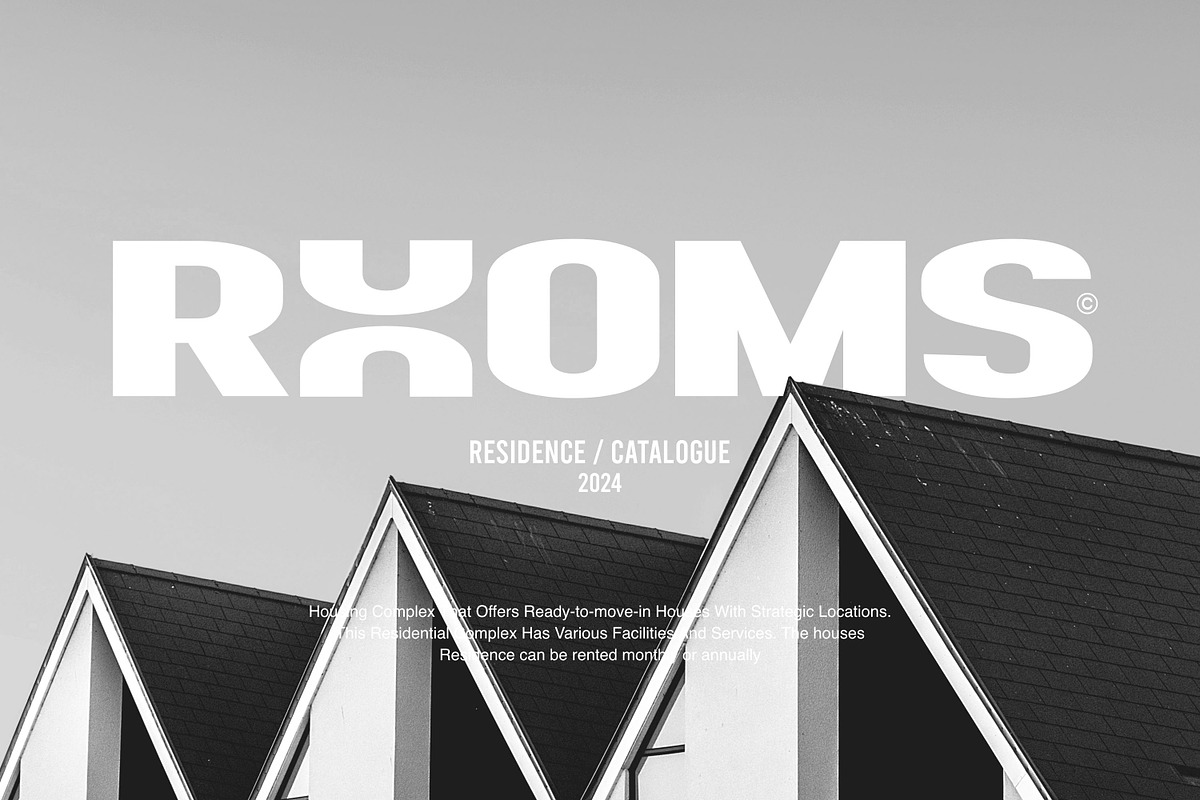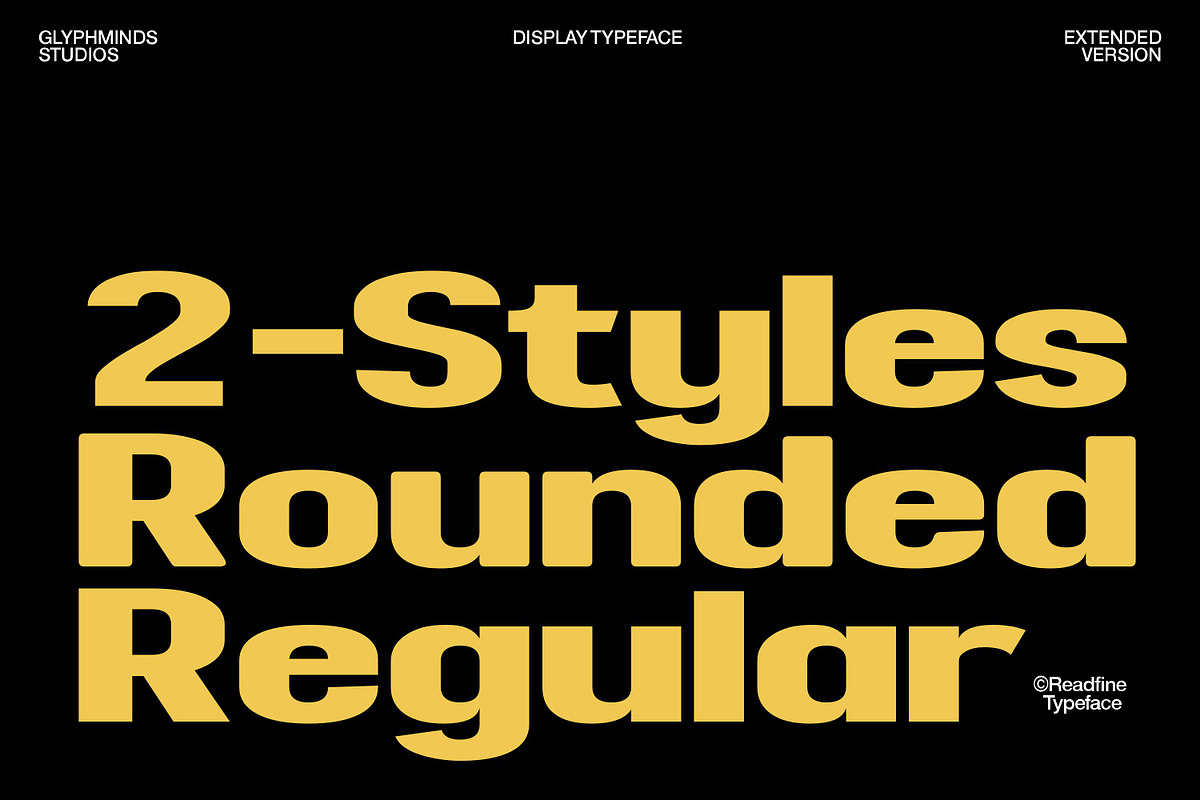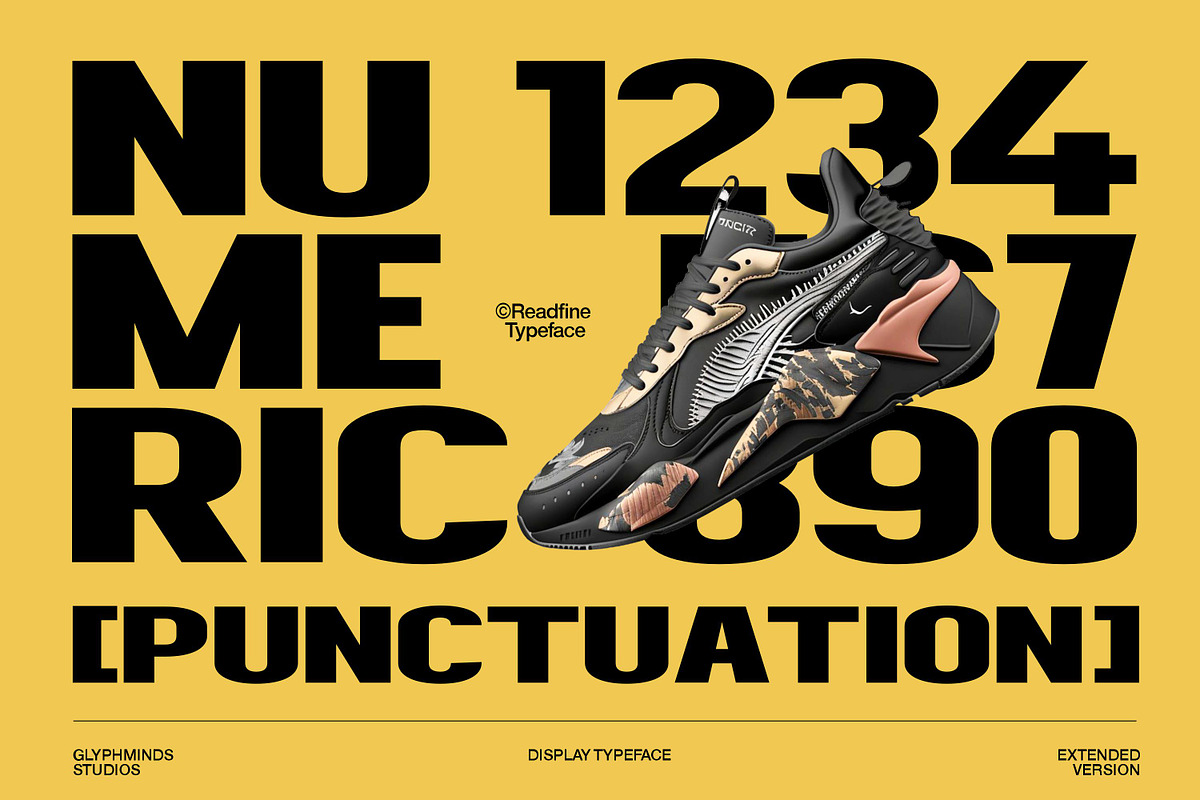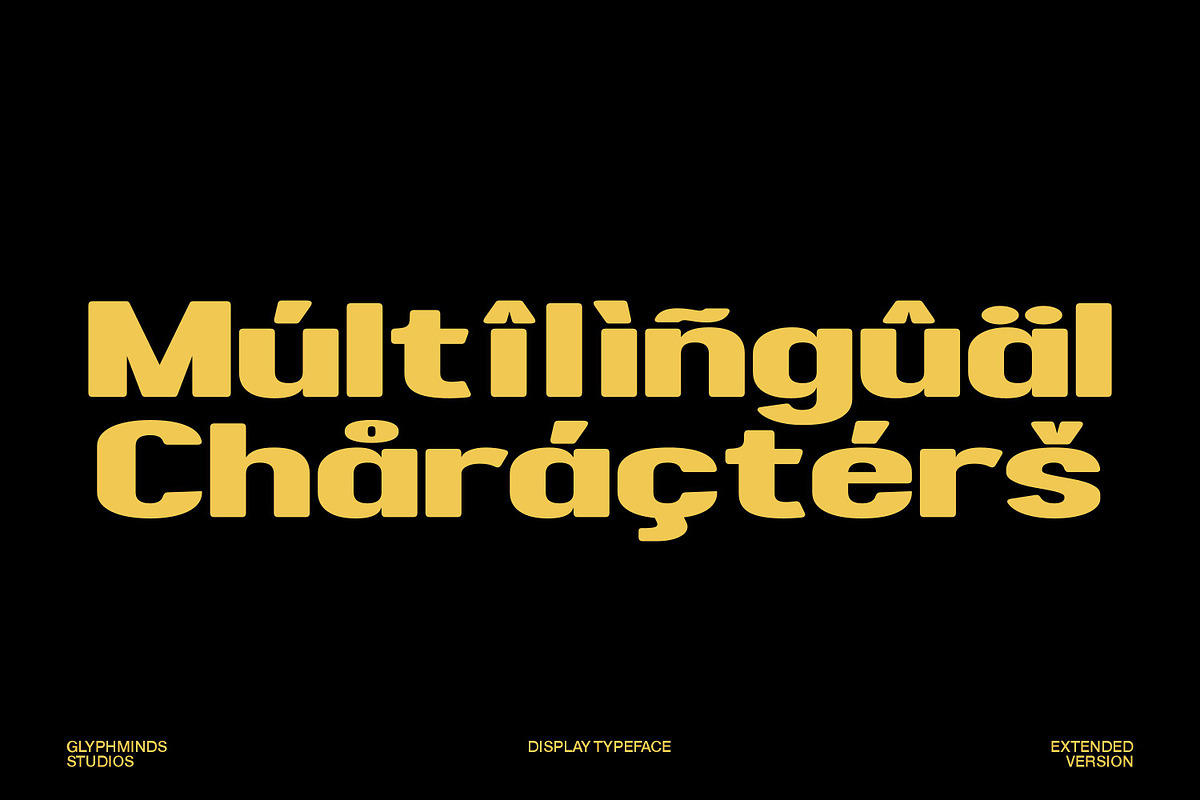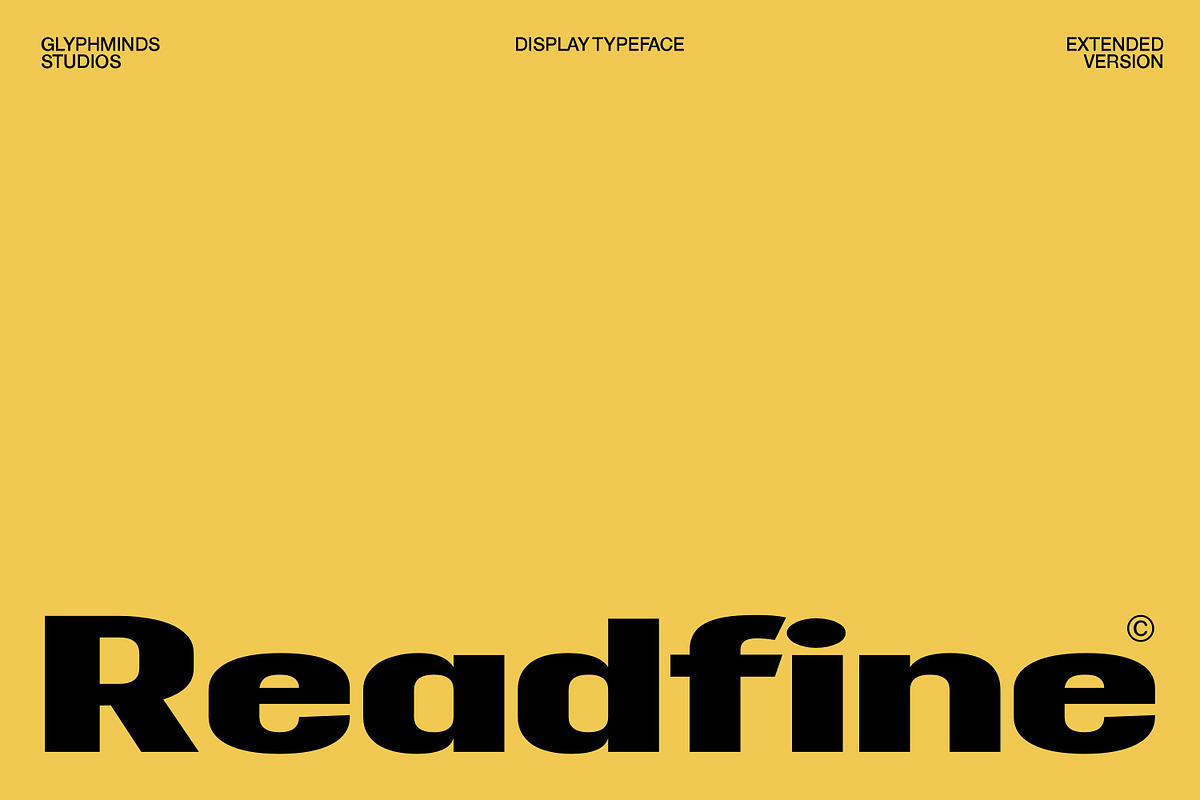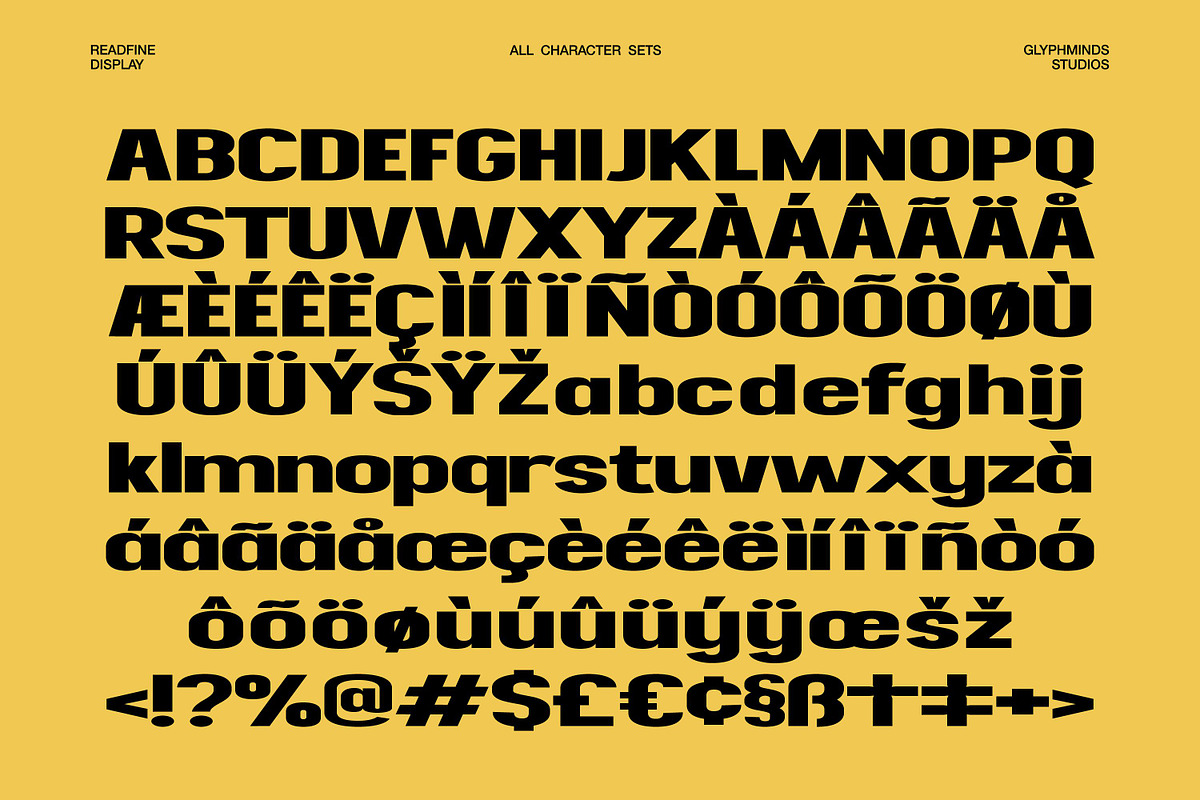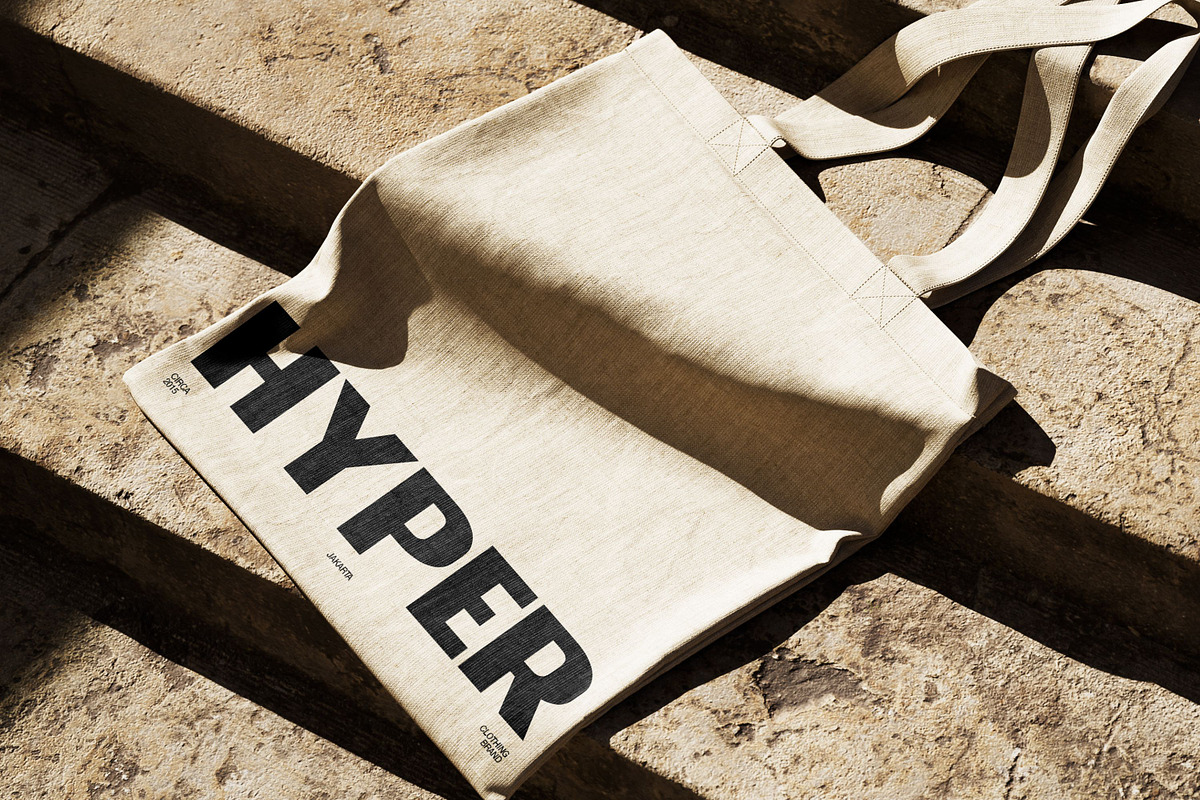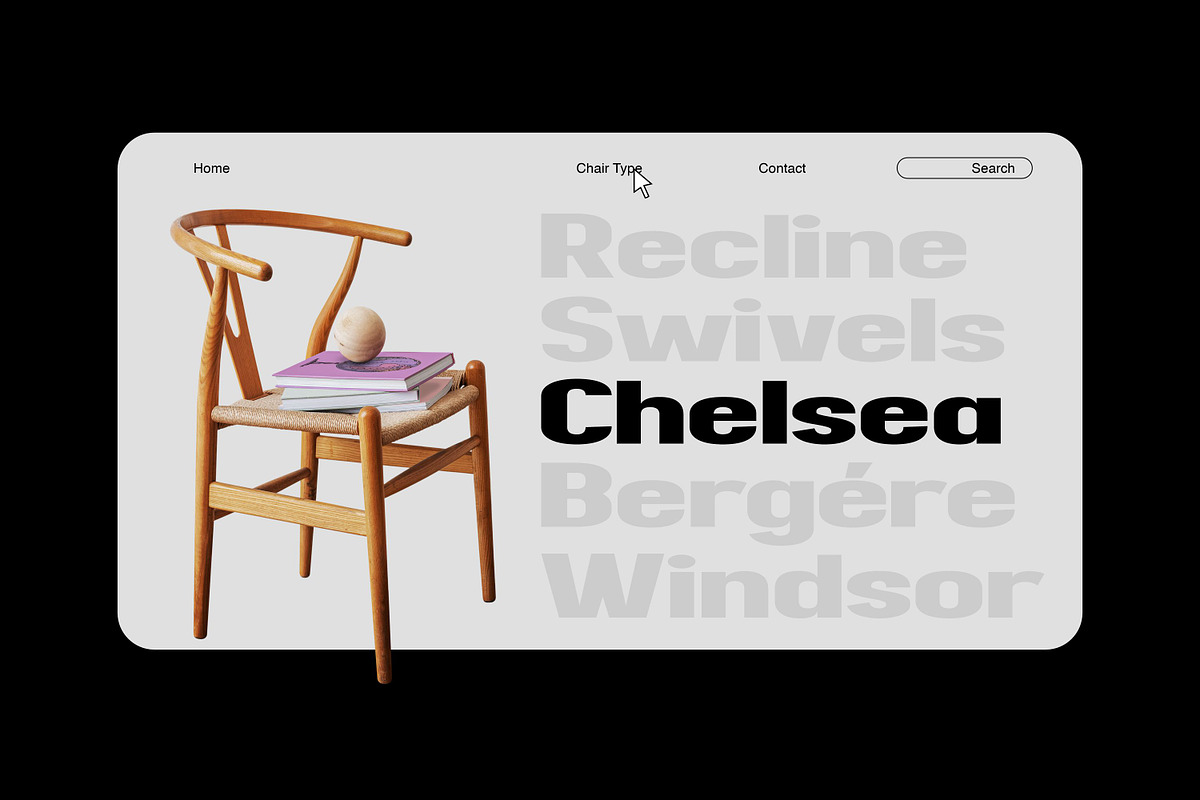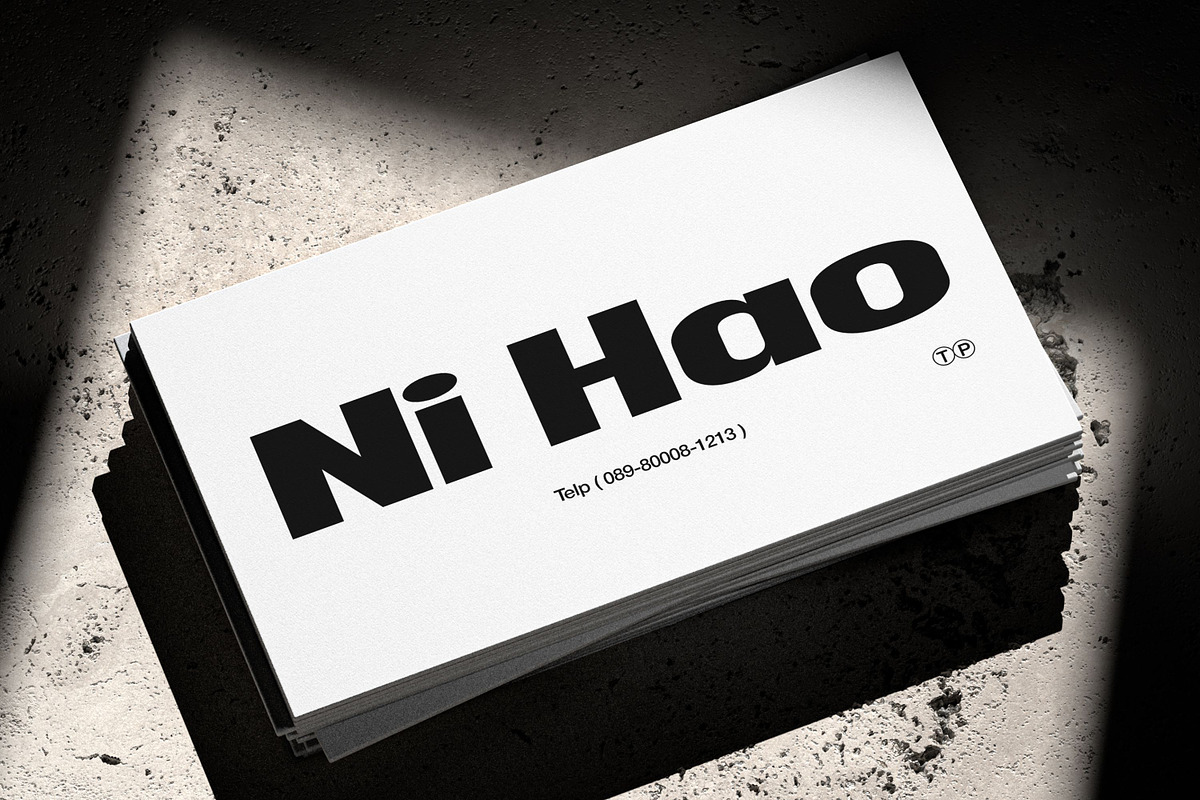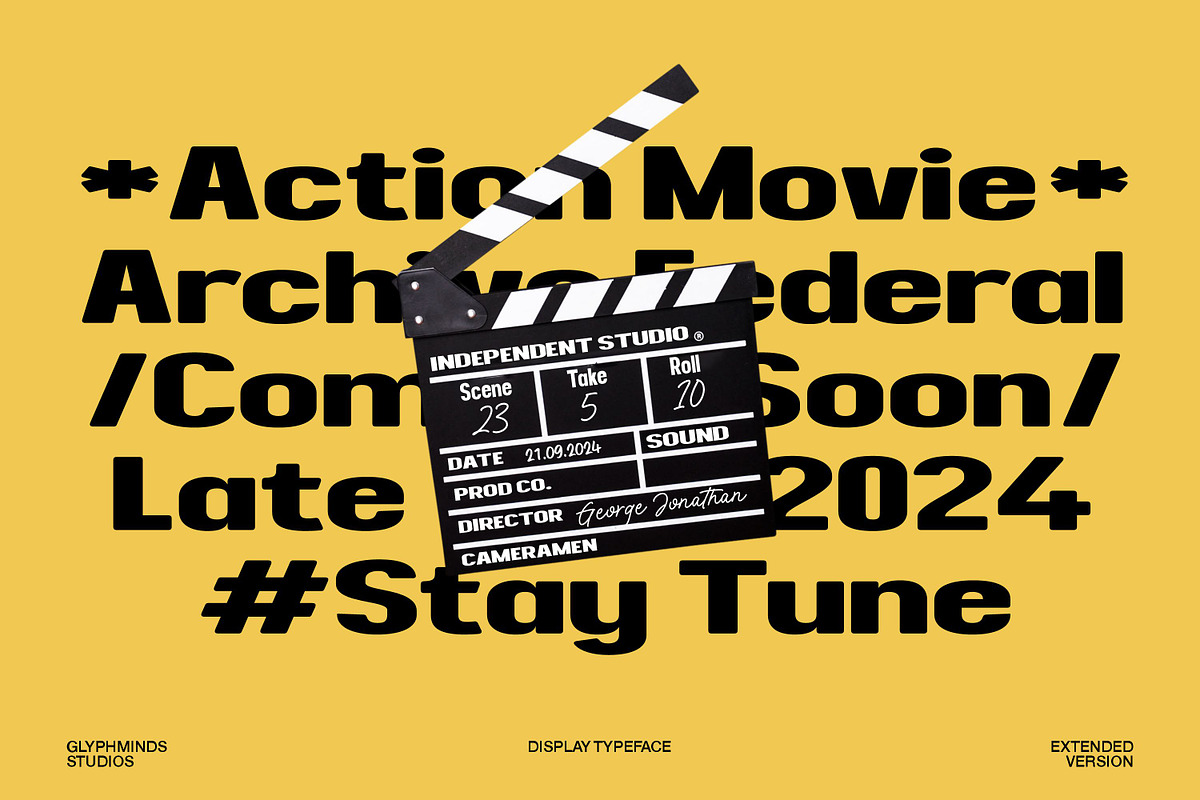
Readfine Extended
Readfine (Extended Version) takes the boldness of the original Readfine typeface to a new level, offering an expanded set of characters and enhanced versatility for all your design needs. This modern display font, created by Glyphminds Studios, features a clean and robust structure that is perfect for striking headlines, branding, posters, and more. The extended version provides even more options, making it ideal for designers who need a powerful typeface that can adapt to various projects while maintaining a strong visual impact. Add sophistication and clarity to your work with Readfine Extended and let your designs make a statement